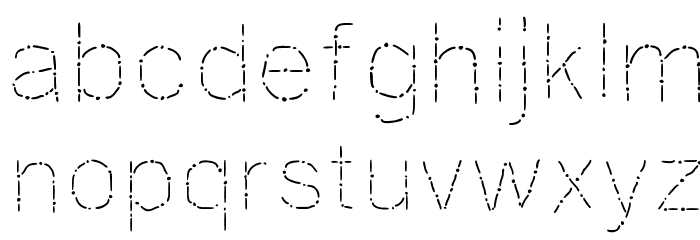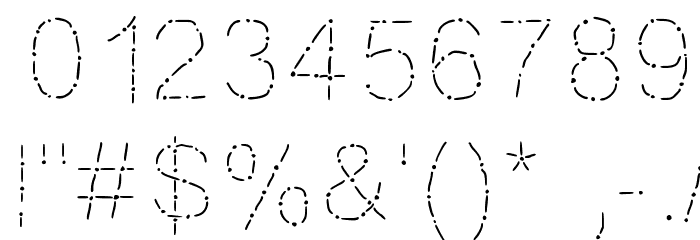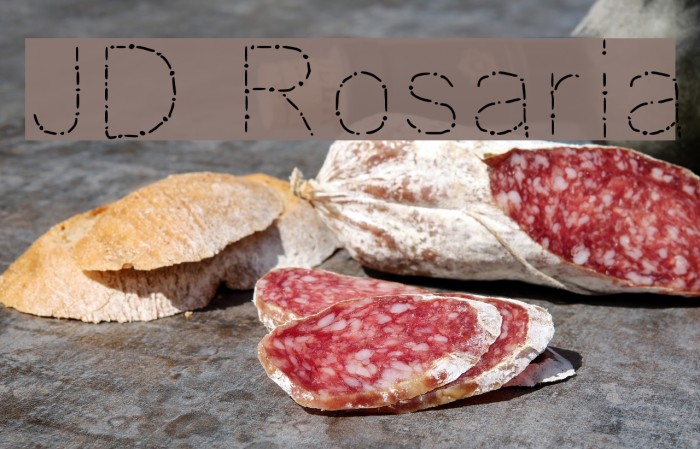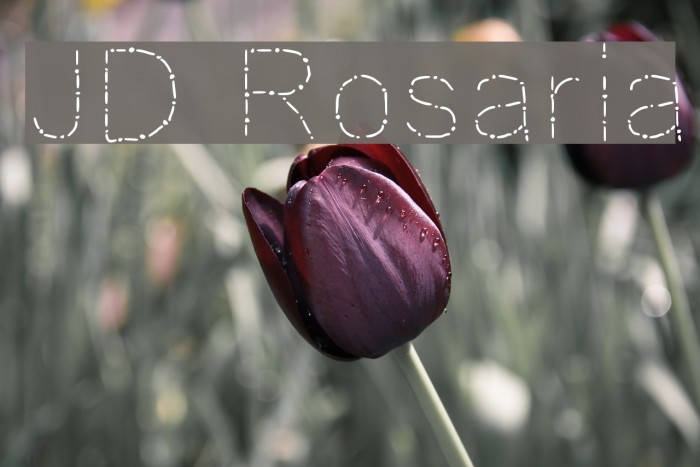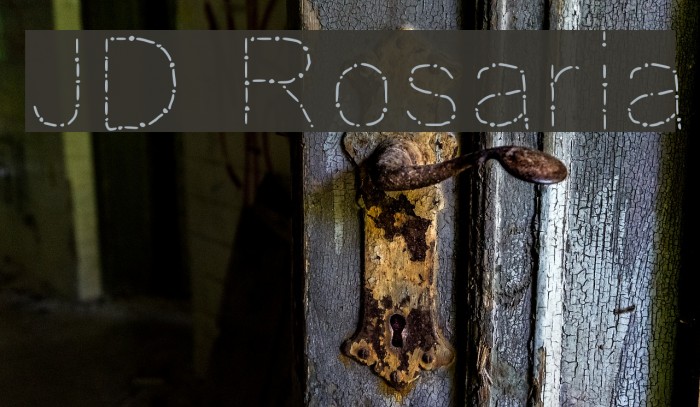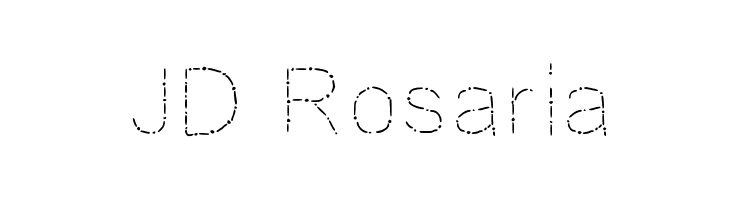
JD Rosaria Font
This font features a unique dotted line style, creating a modern and playful appearance. Each character is formed by a series of evenly spaced dots, giving it a distinctive look that stands out. The uppercase and lowercase letters maintain a consistent height and width, ensuring readability while adding a creative twist. The numbers and special characters follow the same dotted pattern, providing a cohesive design throughout. This font's innovative style makes it ideal for projects that require a touch of whimsy and creativity.
A modern, dotted line font with a playful and creative style.
- Proposed Projects: Ideal for children's books, creative posters, playful branding, and educational materials.